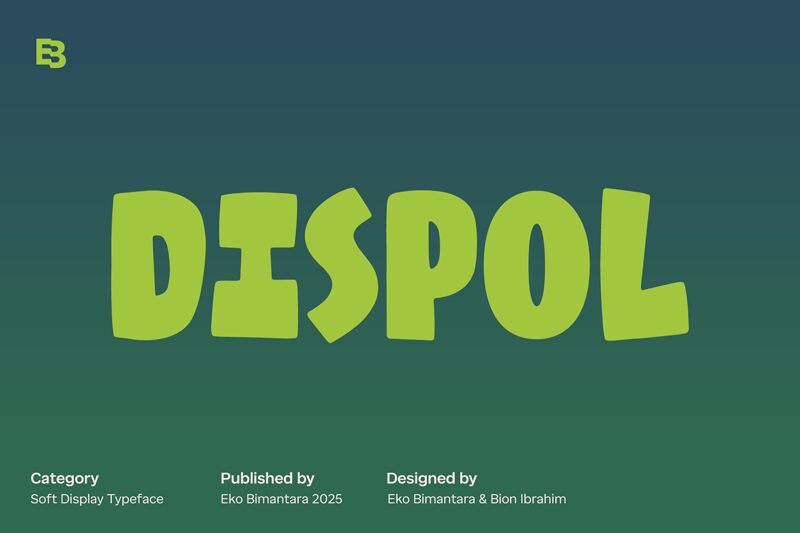
Dispol font designed by Eko Bimantara is a free bold font with a sense of simplicity. Unlike most rounded and bold fonts, this one brings something new to the table that gives it a fresh, modern feel. And while unusual to some extent, it does have a special harmony that it maintains across all glyphs. This free cartoon font features basic Latin characters, numbers, punctuation, and special symbols with which you can create your perfect typing combinations.
Dispol comes as a single font style and has the advantage of having multiple potential uses and applications. It’s friendly, creative, and will perform great in branding tasks and advertising. It goes especially well with youthful design with a fun theme. You can make use of it in your posters, brochures, book covers, web designs, digital content, and all kinds of graphic design artwork.